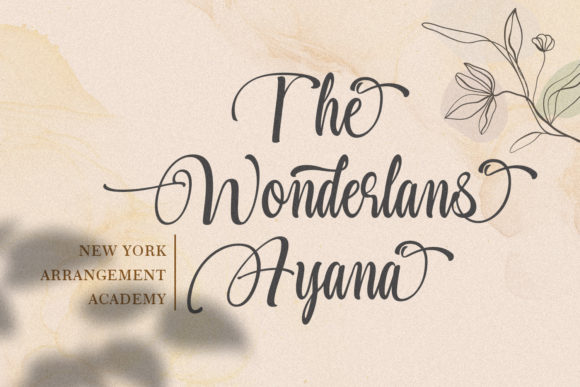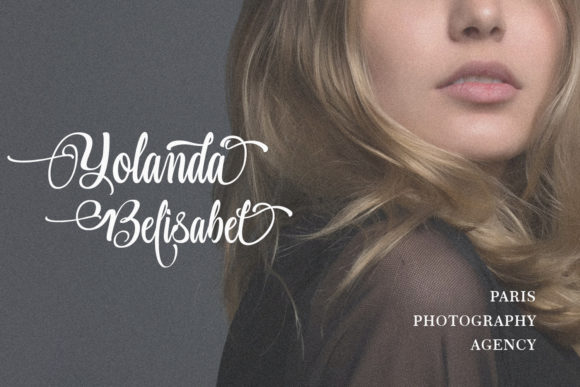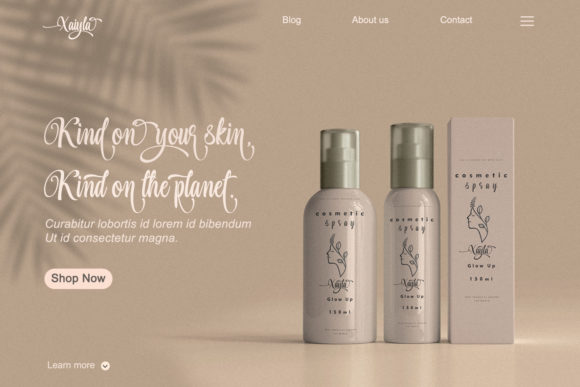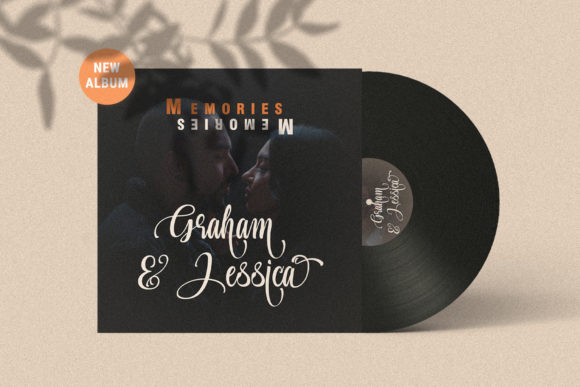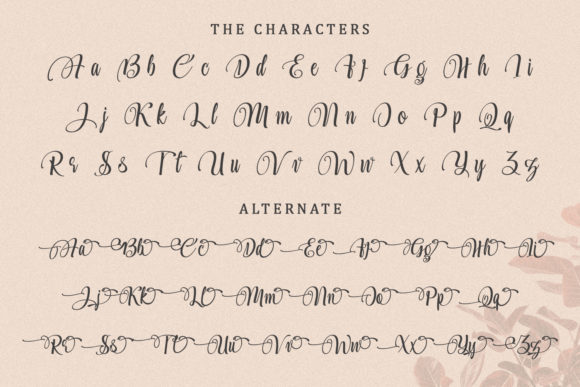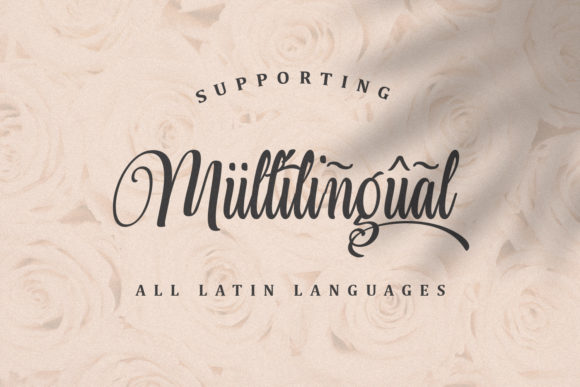
Bryce Murphy Font: The Ultimate Choice for Romantic and Elegant Designs
Bryce Murphy is a stunning script font that has captured the hearts of designers and crafters alike. This dainty and highly detailed font is perfect for adding a touch of romance and elegance to any design project. In this article, we’ll dive into the world of Bryce Murphy font, exploring its features, uses, and benefits.
What is Bryce Murphy Font?
Bryce Murphy is a beautiful script font that boasts intricate details and a delicate appearance. Its elegant strokes and flourishes make it an ideal choice for designs that require a touch of sophistication and romance. This font is perfect for creating stunning wedding invitations, love letters, and other design projects that demand a high level of elegance.
Features of Bryce Murphy Font
Bryce Murphy font comes with a range of features that make it a standout choice for designers and crafters. Some of its notable features include:
- Intricate details: The font boasts highly detailed strokes and flourishes that give it a unique and elegant appearance.
- Dainty appearance: The font has a delicate and dainty look that makes it perfect for romantic and elegant designs.
- Script style: The font is a script font, making it ideal for designs that require a personal and handwritten touch.
- Highly legible: Despite its intricate details, the font is highly legible, making it easy to read and understand.
Uses of Bryce Murphy Font
Bryce Murphy font is a versatile font that can be used in a variety of design projects. Some of its popular uses include:
- Wedding invitations: The font’s elegant and romantic appearance makes it perfect for creating stunning wedding invitations.
- Love letters: Add a touch of romance to your love letters with this beautiful script font.
- Design projects: Use the font to add a touch of elegance and sophistication to your design projects, such as brochures, flyers, and posters.
- Stationery: The font is perfect for creating beautiful stationery, such as letterheads, envelopes, and greeting cards.
Benefits of Using Bryce Murphy Font
Using Bryce Murphy font in your design projects comes with a range of benefits, including:
- Elegant appearance: The font’s elegant and romantic appearance will add a touch of sophistication to your designs.
- Unique look: The font’s intricate details and dainty appearance make it a unique and standout choice for designers and crafters.
- Highly legible: The font’s high legibility makes it easy to read and understand, ensuring that your message is conveyed clearly.
- Versatility: The font can be used in a variety of design projects, making it a versatile addition to your font collection.
Tips for Using Bryce Murphy Font
To get the most out of Bryce Murphy font, here are some tips to keep in mind:
- Use it sparingly: Use the font sparingly to add a touch of elegance and sophistication to your designs.
- Pair it with other fonts: Pair the font with other fonts to create a unique and visually appealing combination.
- Adjust the size: Adjust the font size to suit your design needs, ensuring that it’s legible and easy to read.
Bryce Murphy font is a stunning script font that is perfect for adding a touch of romance and elegance to any design project. Its intricate details, dainty appearance, and high legibility make it a standout choice for designers and crafters. With its versatility and range of uses, Bryce Murphy font is a must-have addition to any font collection.